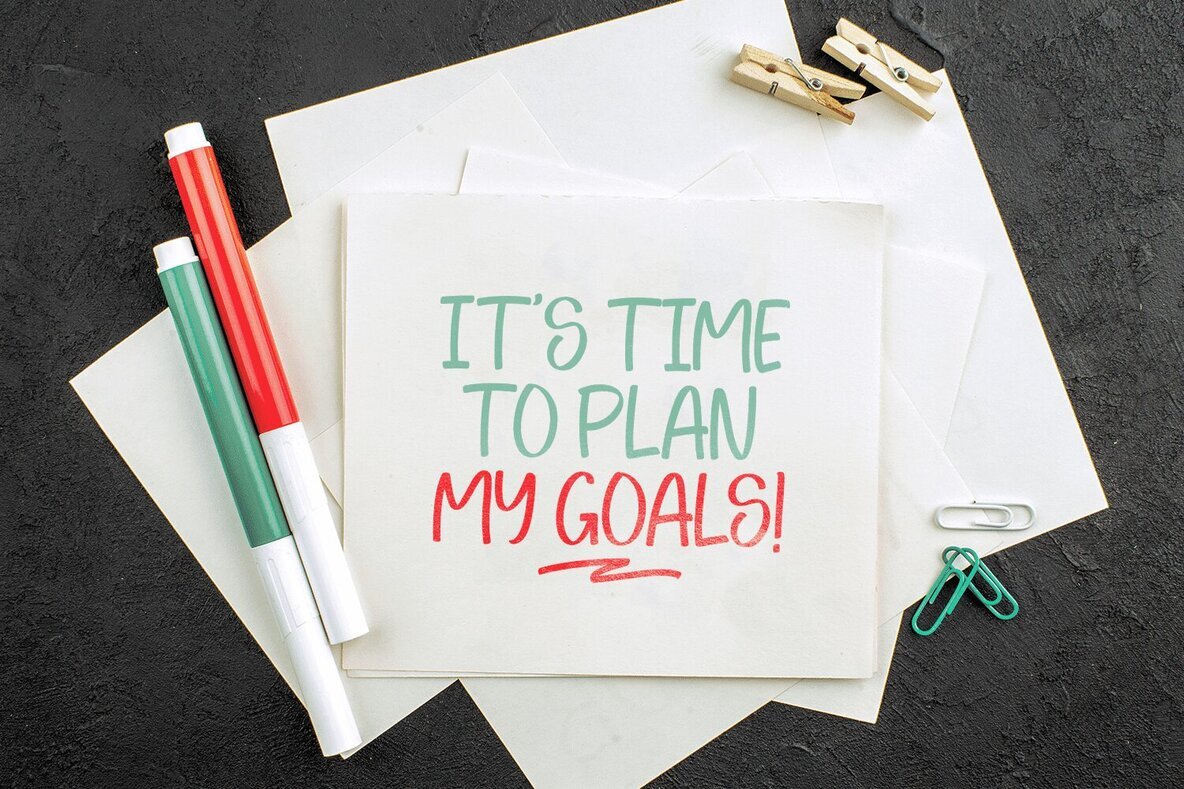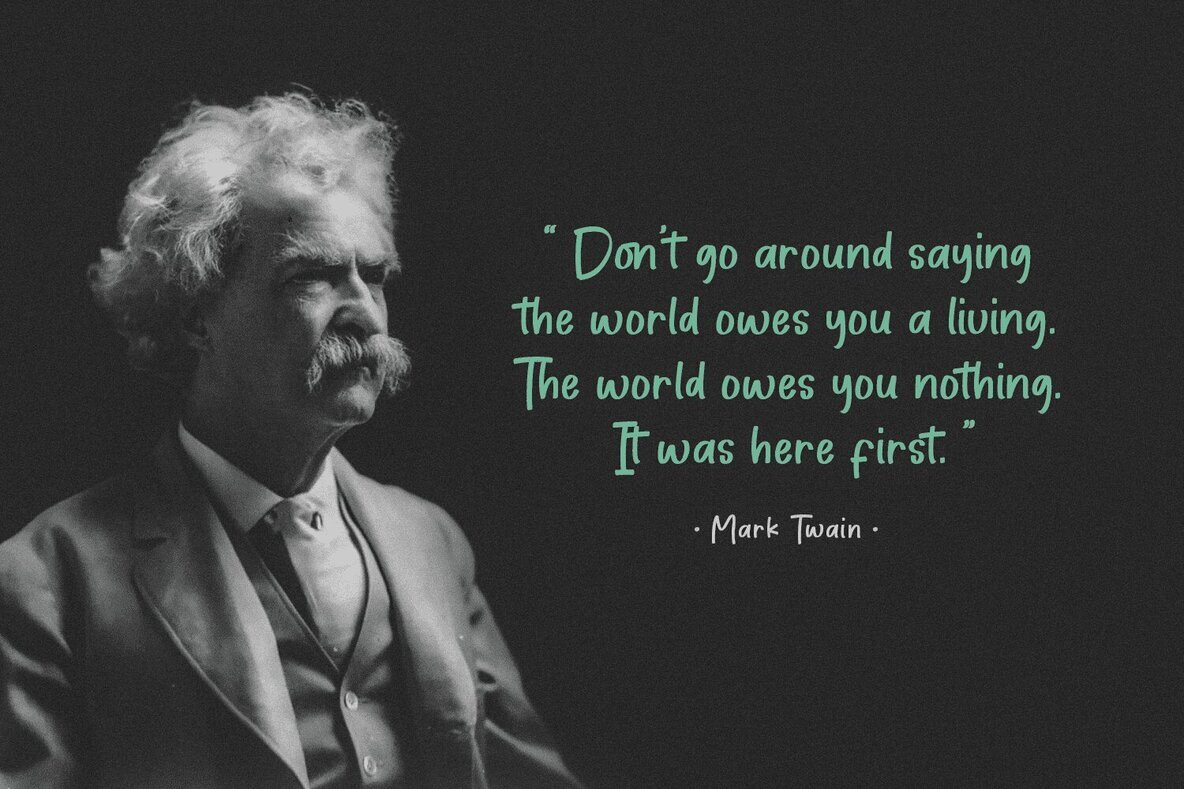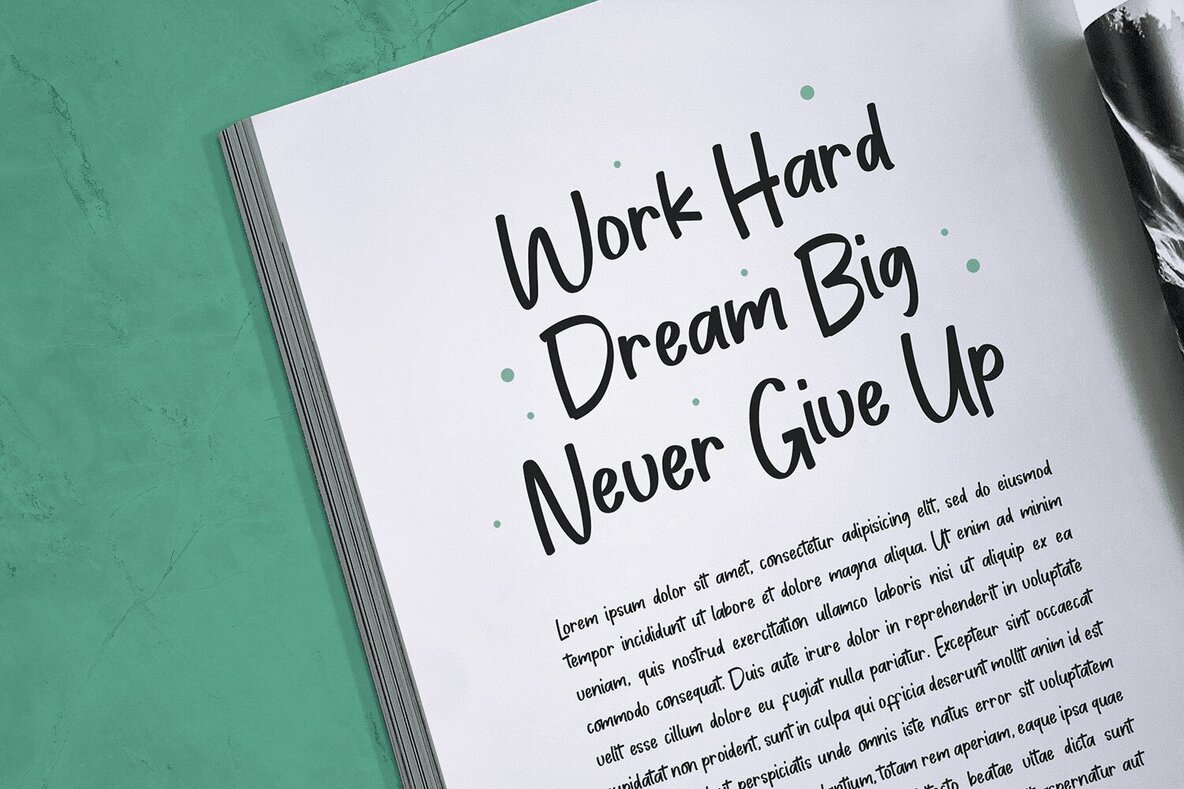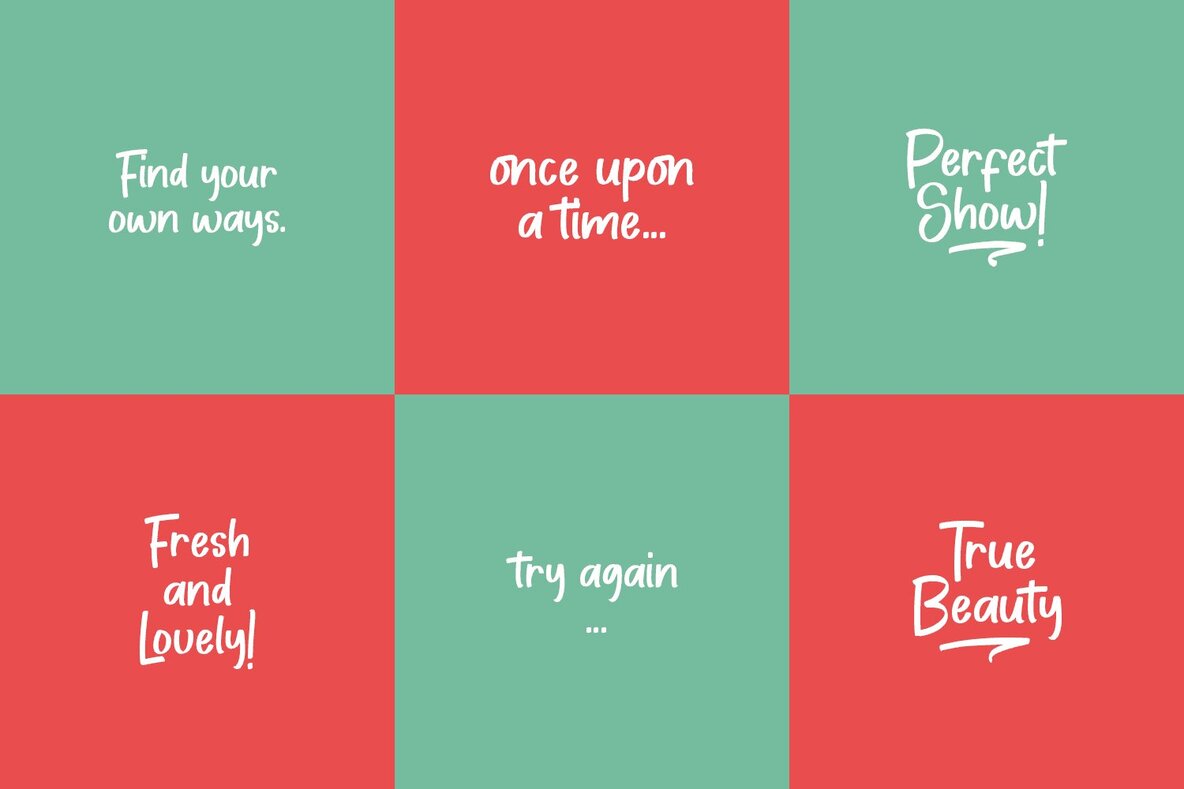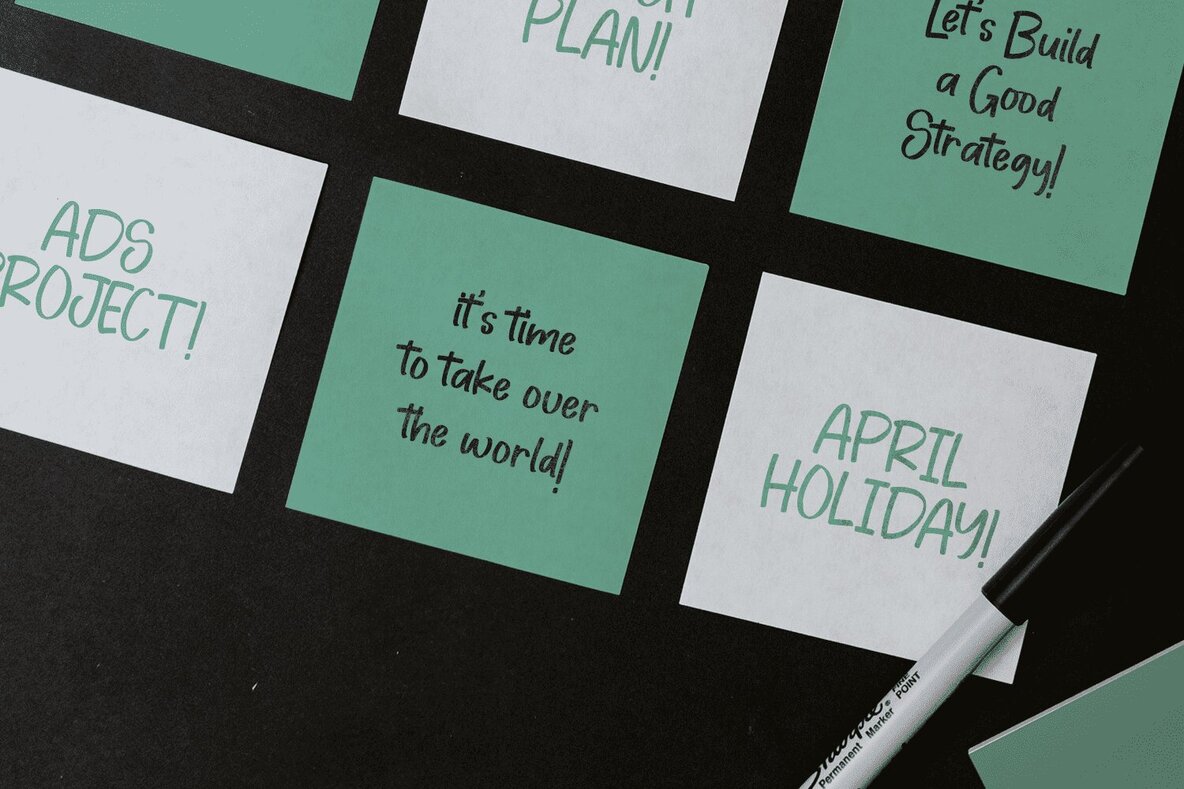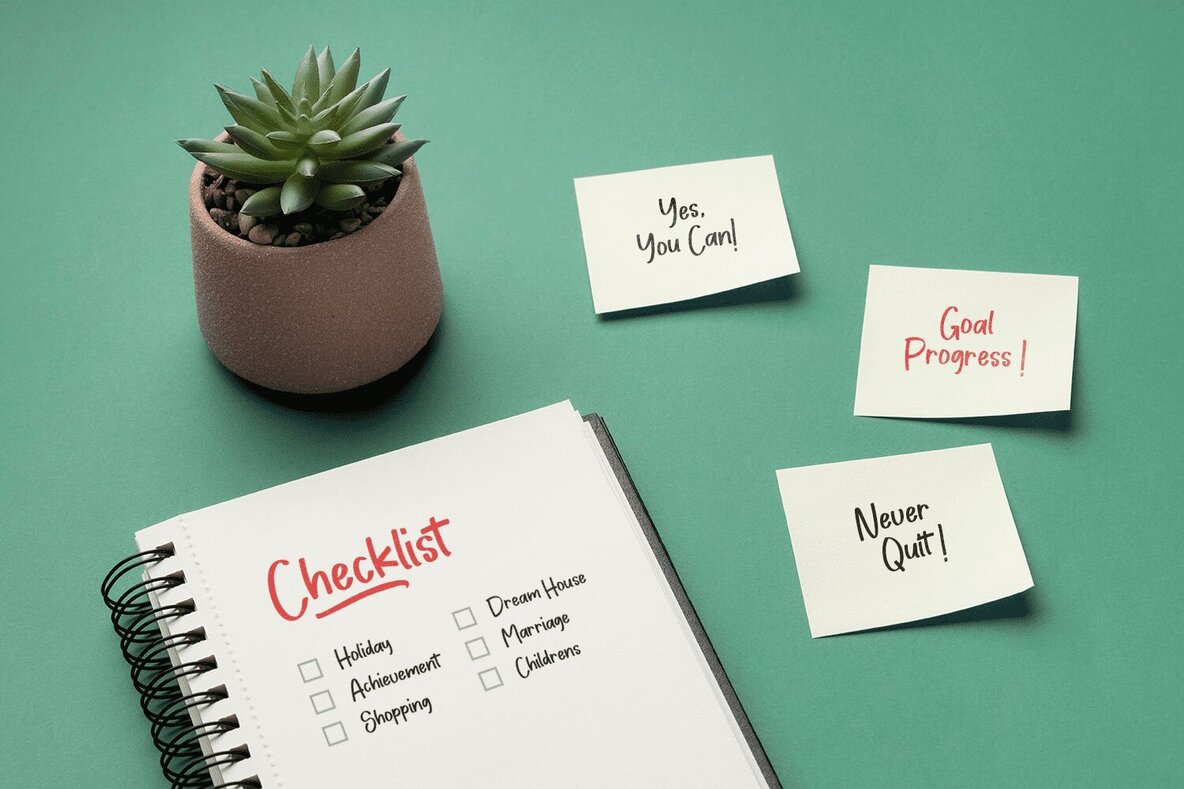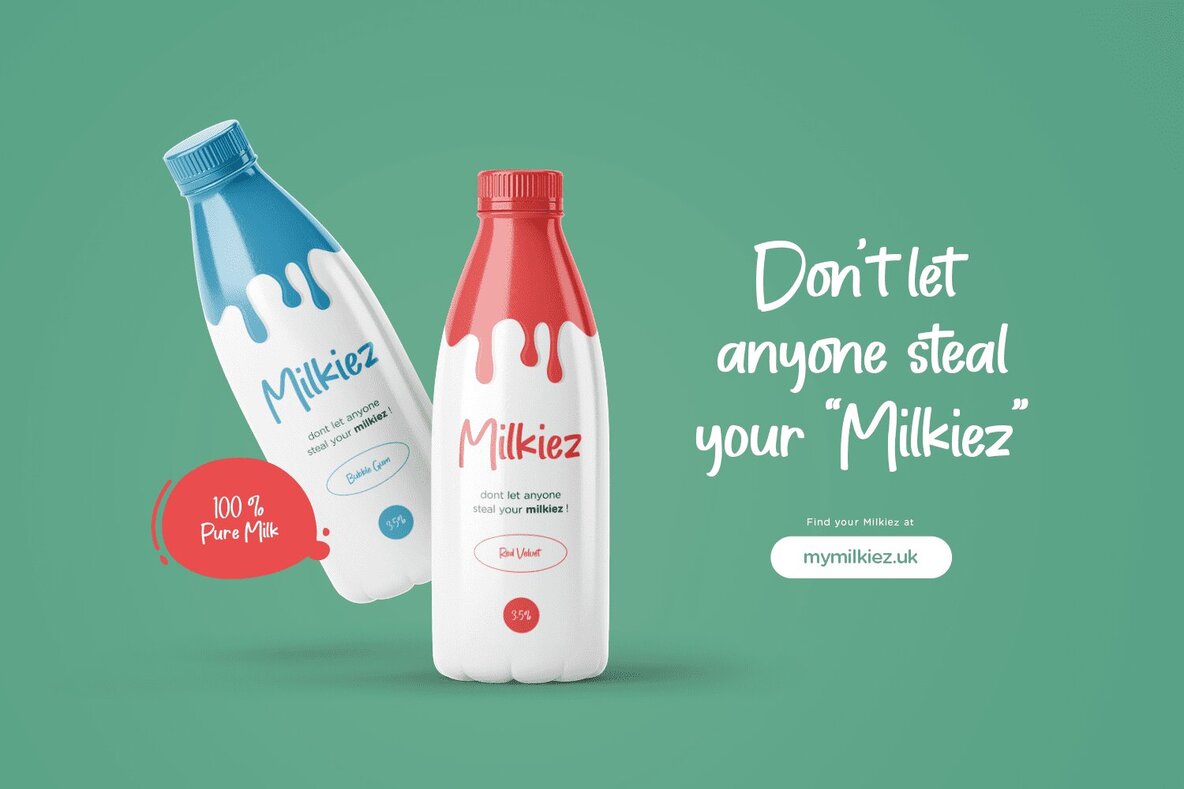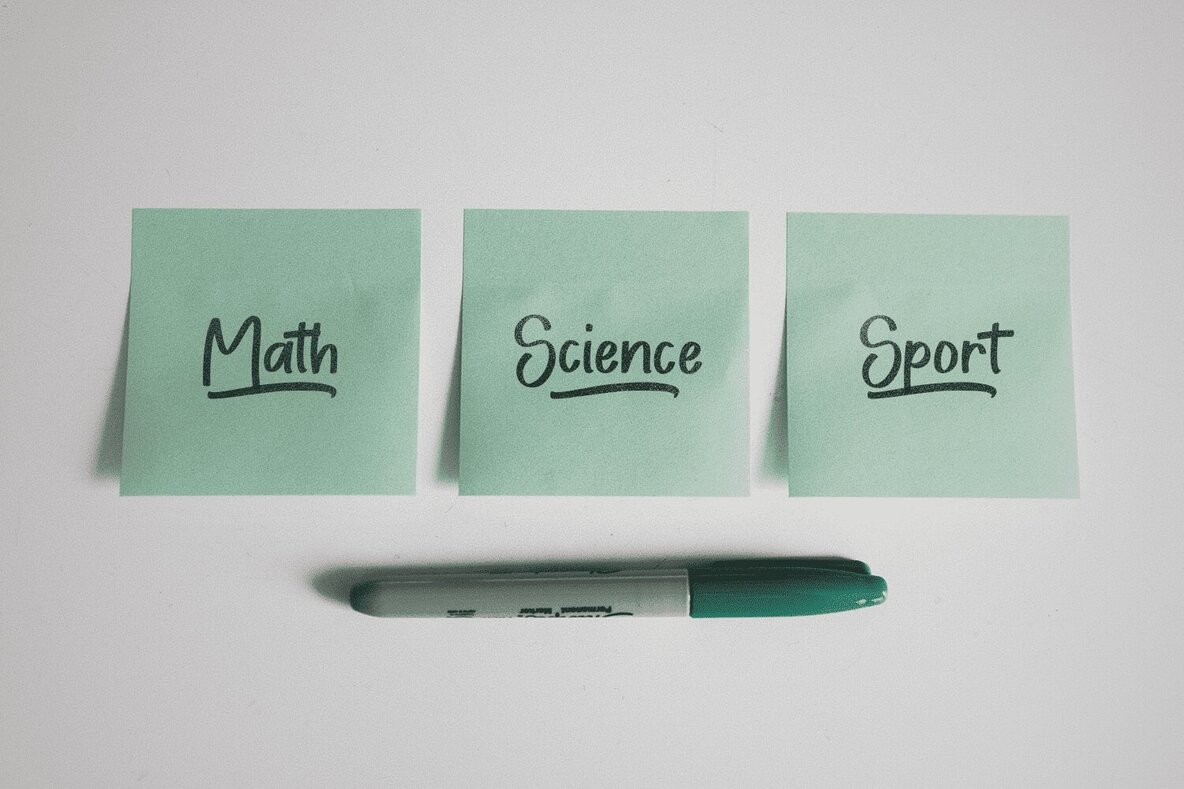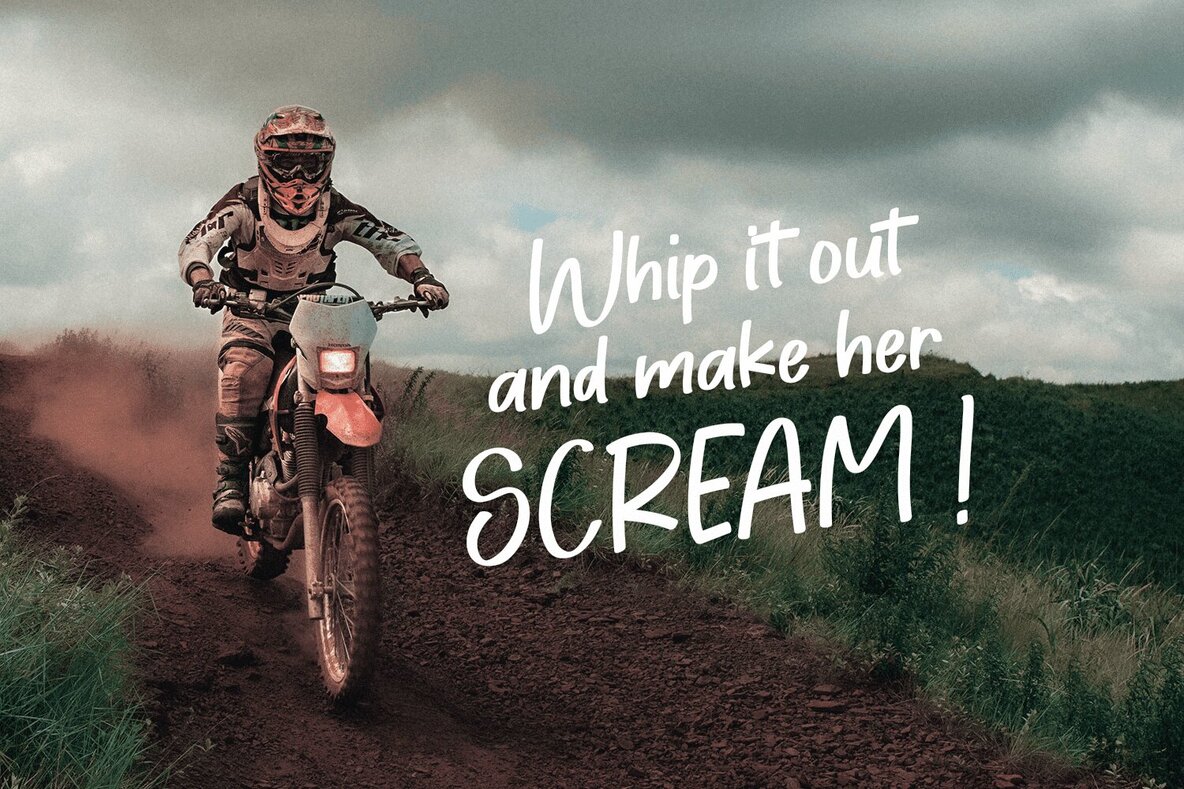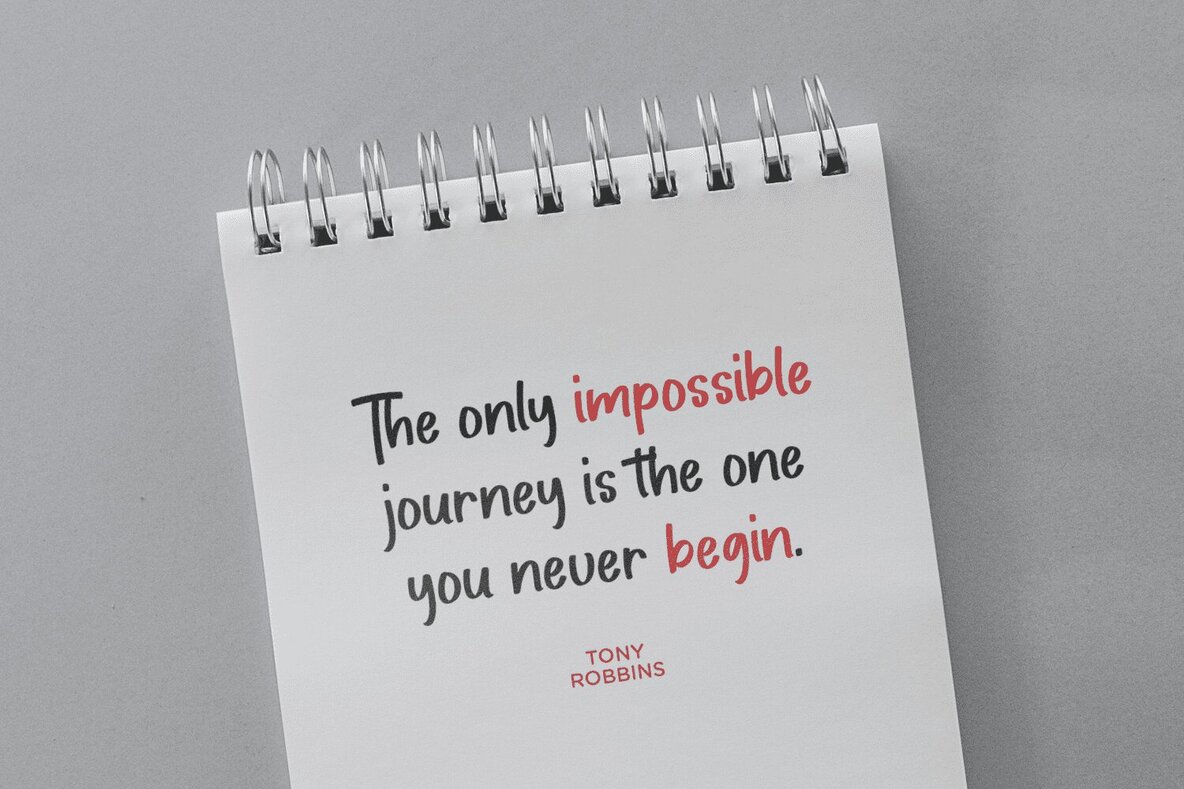
Blank Notes Font
Blank Notes is a bold and playful handwritten marker font. It's created with a natural and unique style and has beautiful and neat characters. This font is perfect for digital notes, logotype, quotes design, book cover, t-shirt design, magazine titles, food menu, poster, kids projectbranding, social media, crafty DIY projects or anything. Add it to your most creative ideas and notice how it makes them come alive!